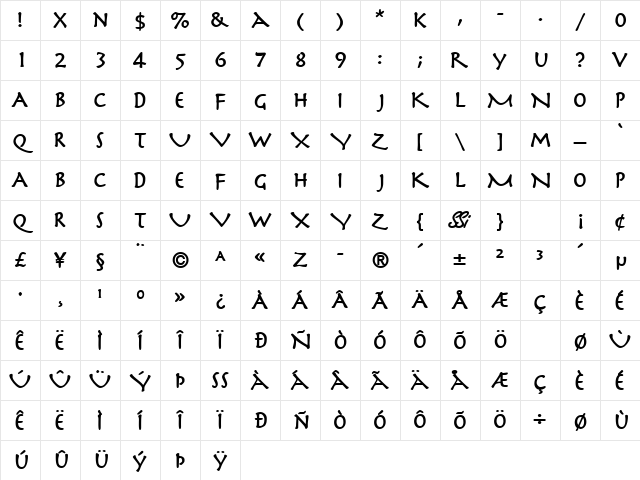
Complete SpartaCapsSSK Bold glyph index. Displaying only characters natively supported by SpartaCapsSSK Bold font.
SpartaCapsSSK is a composed and adaptable typeface that performs quietly and consistently across a wide range of design contexts. Its bold stroke weight gives it real presence on the page.